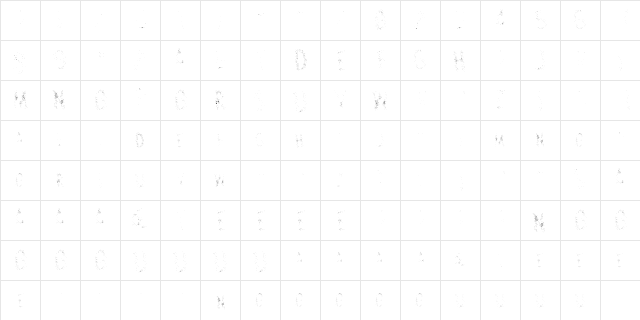
Carbon Regular
Design Context for Carbon Typeface
Carbon is a composed and adaptable typeface that performs quietly and consistently across a wide range of design contexts.
Pro Tip: Pair Carbon with a font of contrasting weight or personality to build a more expressive typographic hierarchy.